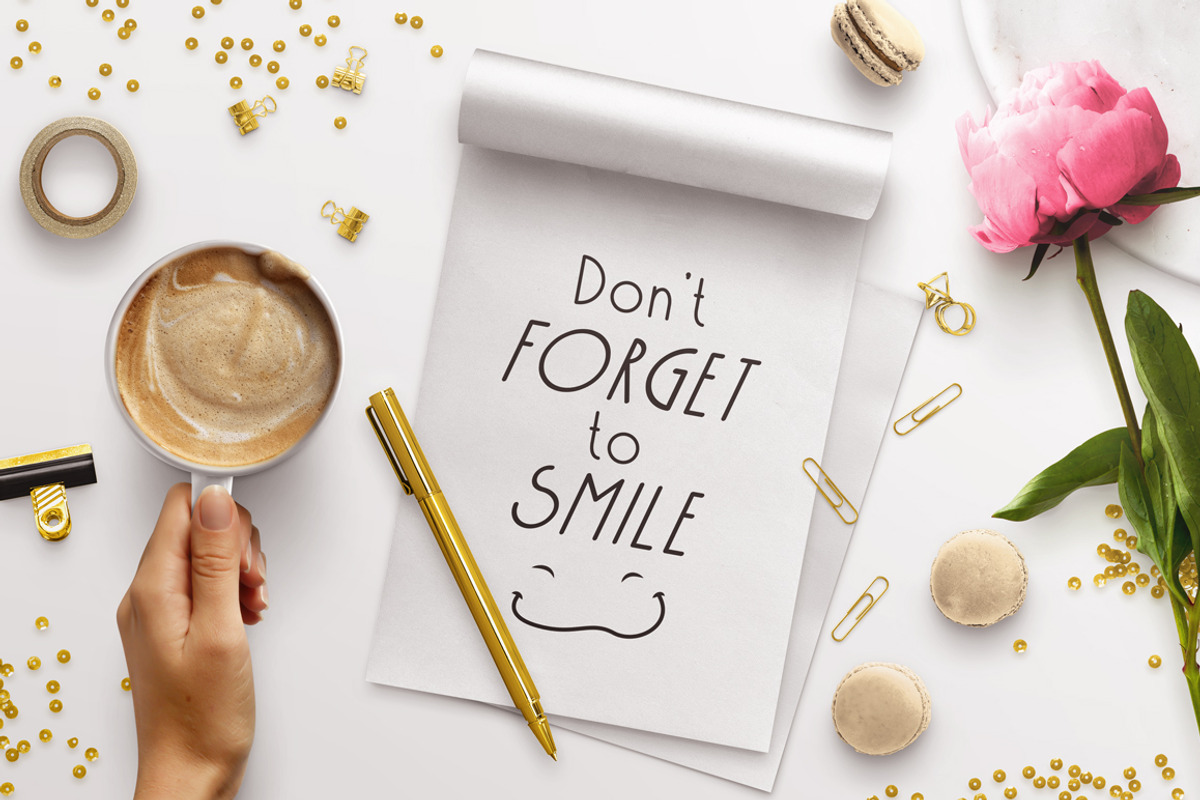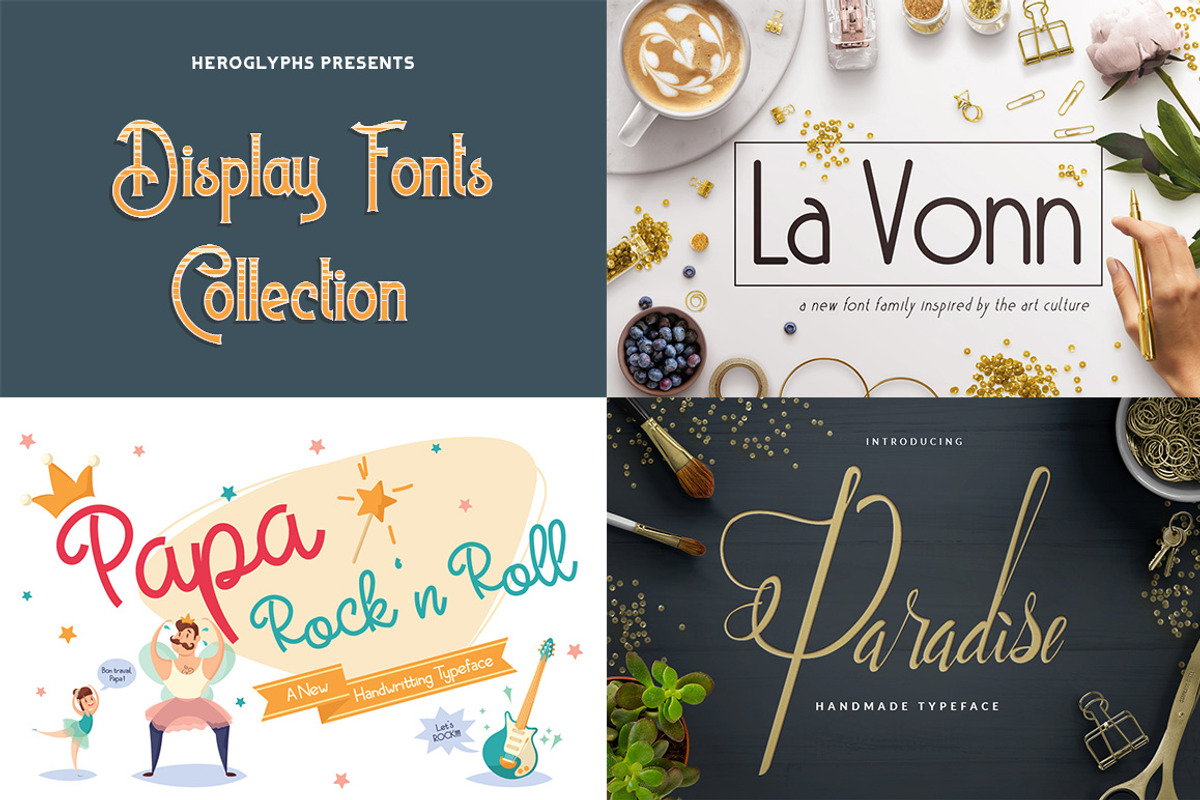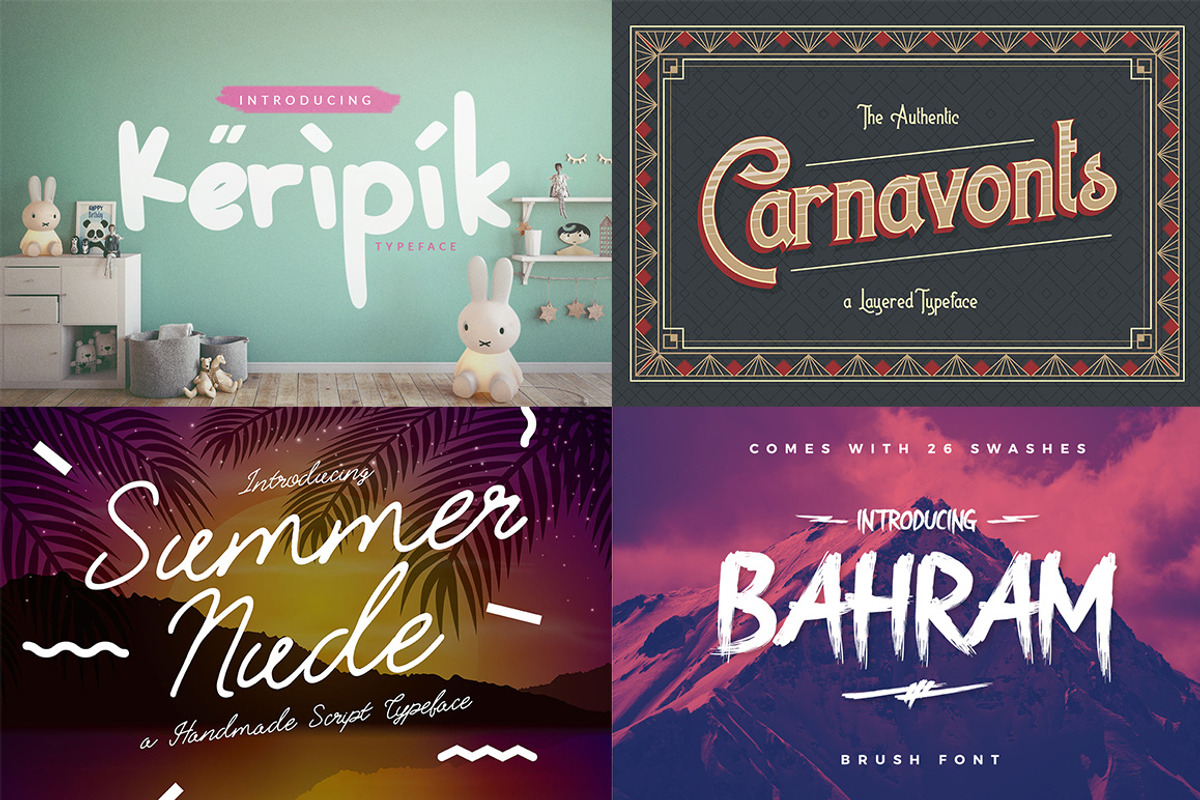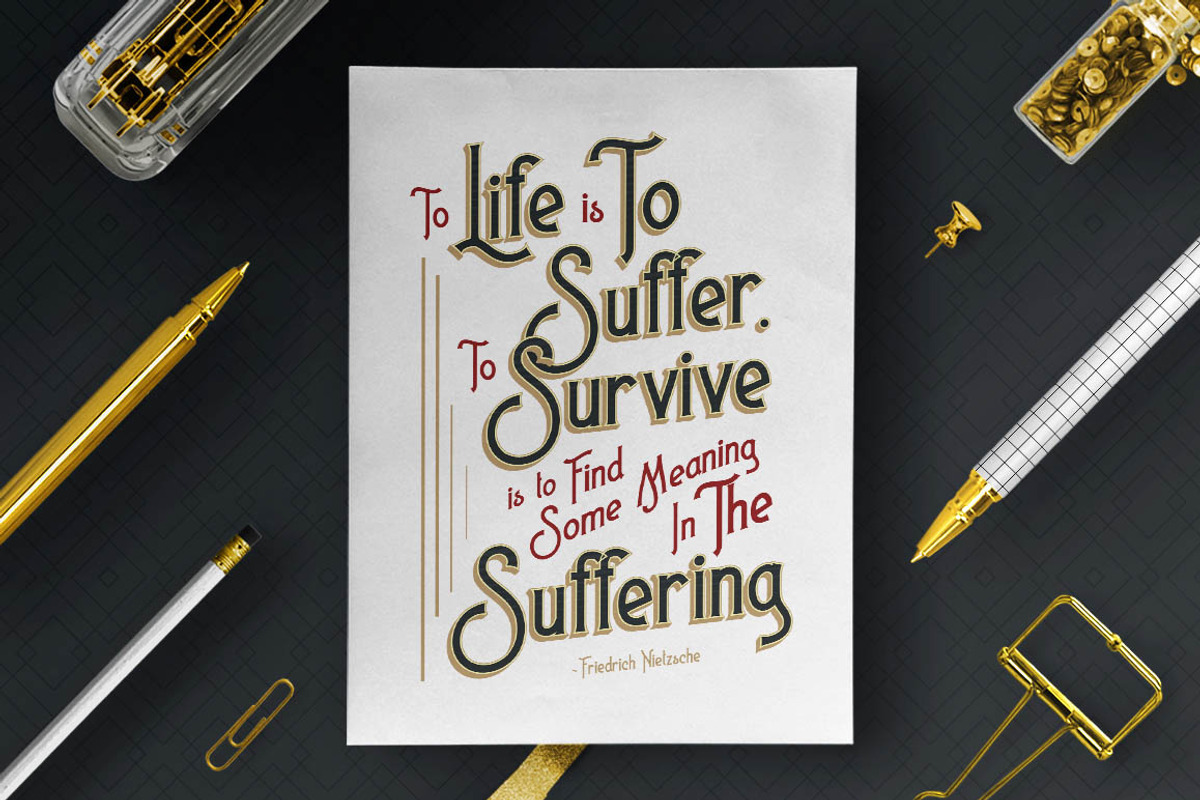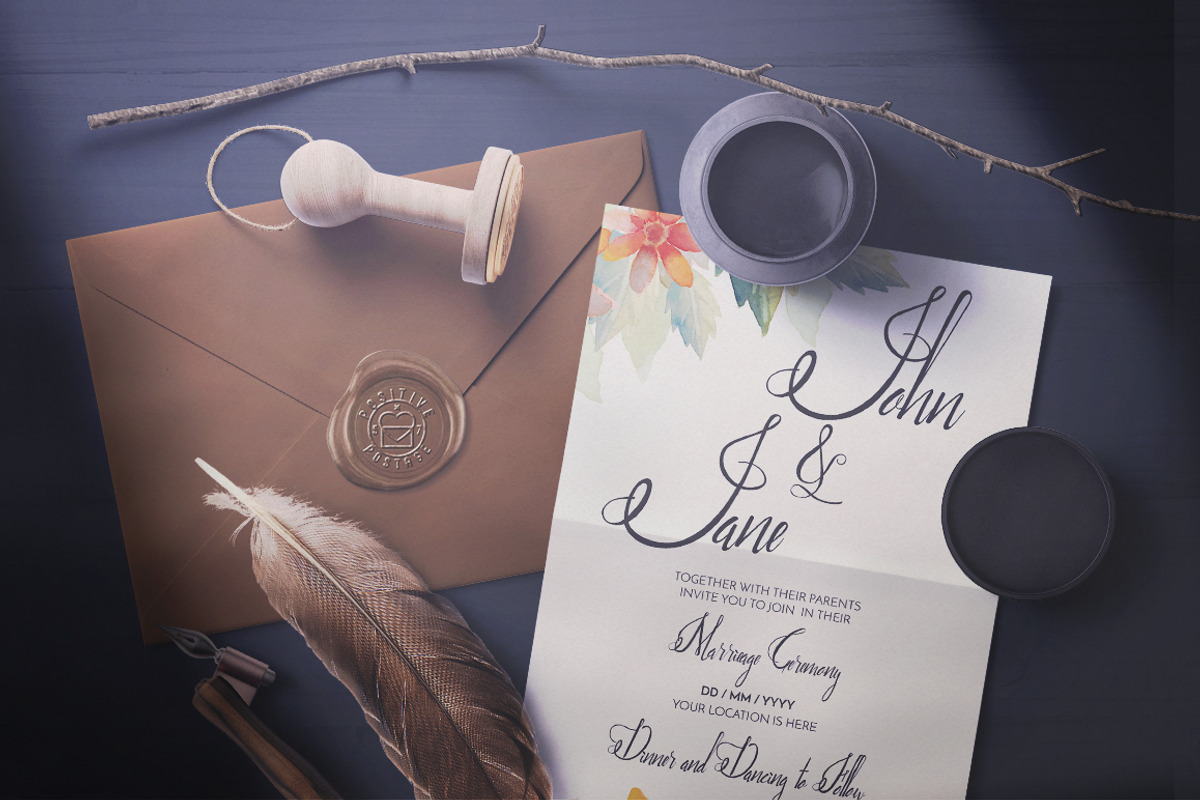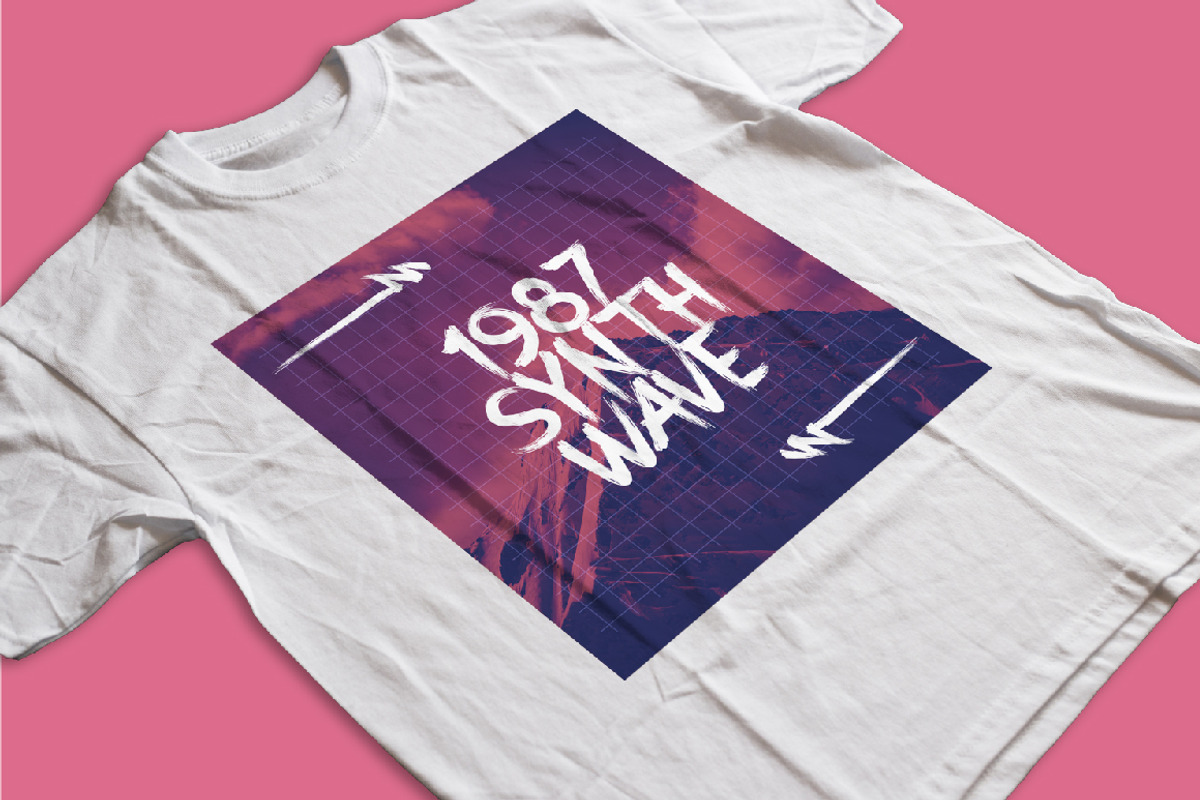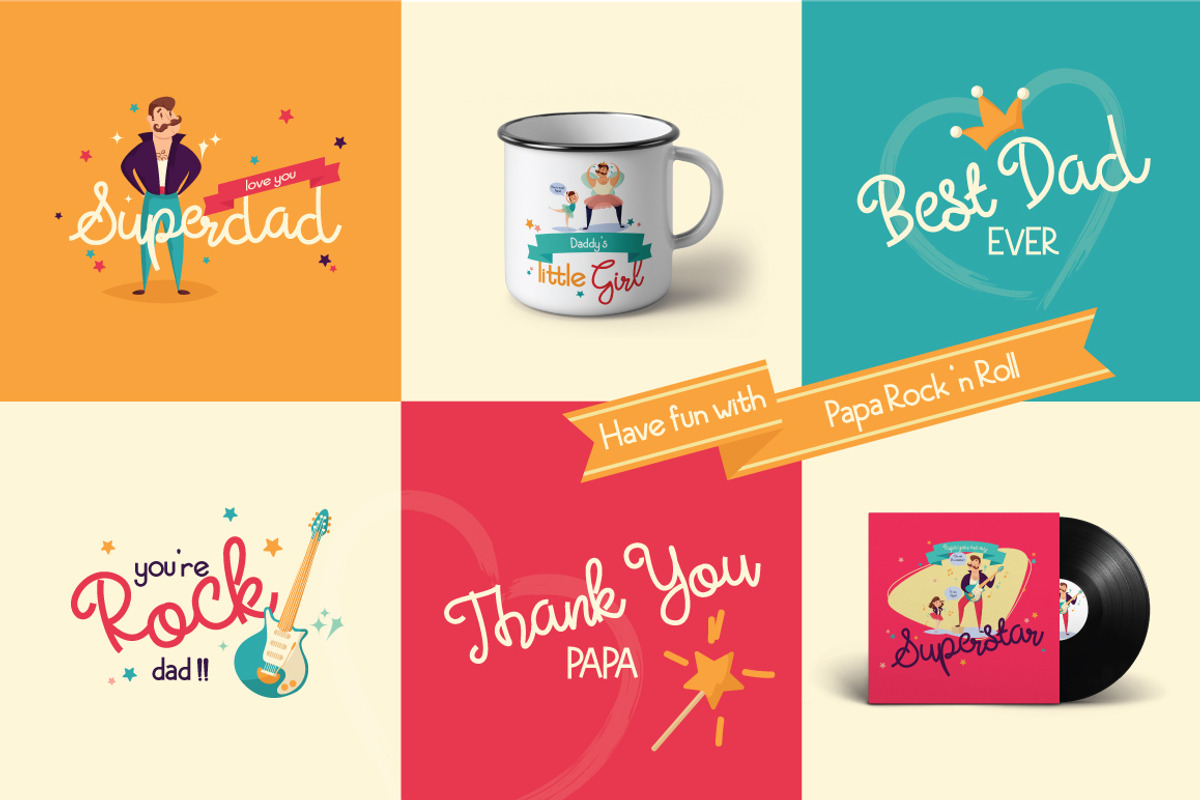
Display Font Collection-Value Price
This package is perfect for Display, such as title, quotes, logo, etc. so it will be suitable for greeting cards, branding, business cards, quotes, posters, stickers, blogs, logos, weddings, signage, packaging, birth announcements, photo overlays, wall art, quotes, printable, bags, t-shirts and more!
- This package is perfect for Display, such as title, quotes, logo, etc.
- This package includes: Monday Lover Torberta Bahram Twigs Keripik La Vonn Carnavonts Paradise Papa Rock n Roll Popera Father and Son Sedalia
- This package is perfect for Display, such as title, quotes, logo, etc.
- This package includes: Monday Lover Torberta Bahram Twigs Keripik La Vonn Carnavonts Paradise Papa Rock n Roll Popera Father and Son Sedalia
Why Display Font Collection-Value Price is worth a look
Display Font Collection-Value Price by Heroglyphs Studio fits naturally into Branding, posters, packaging, typography.